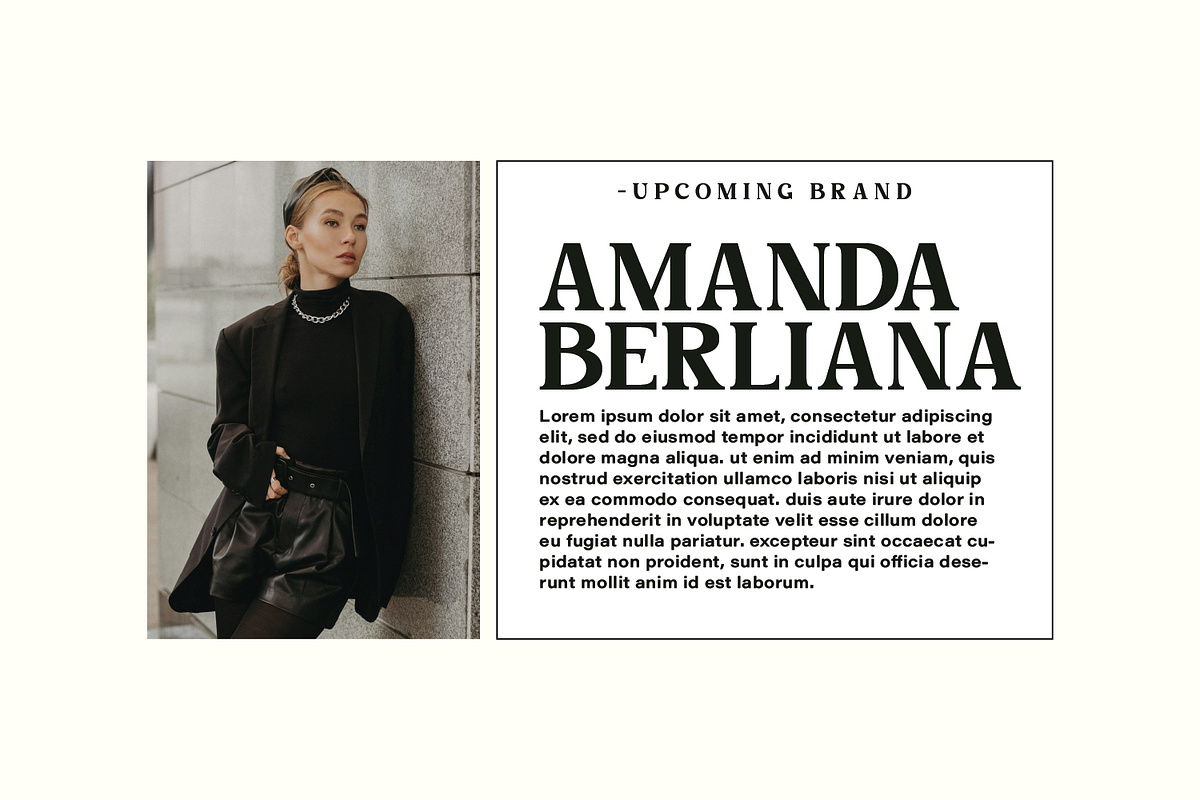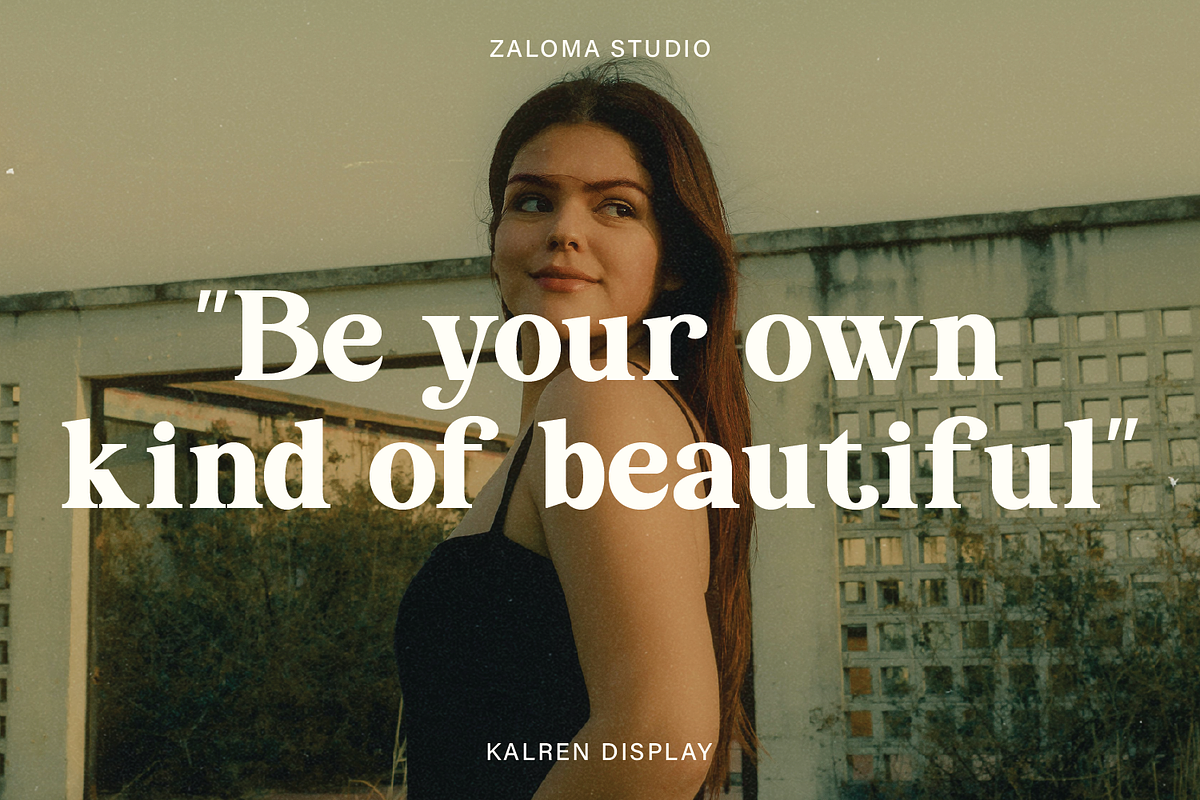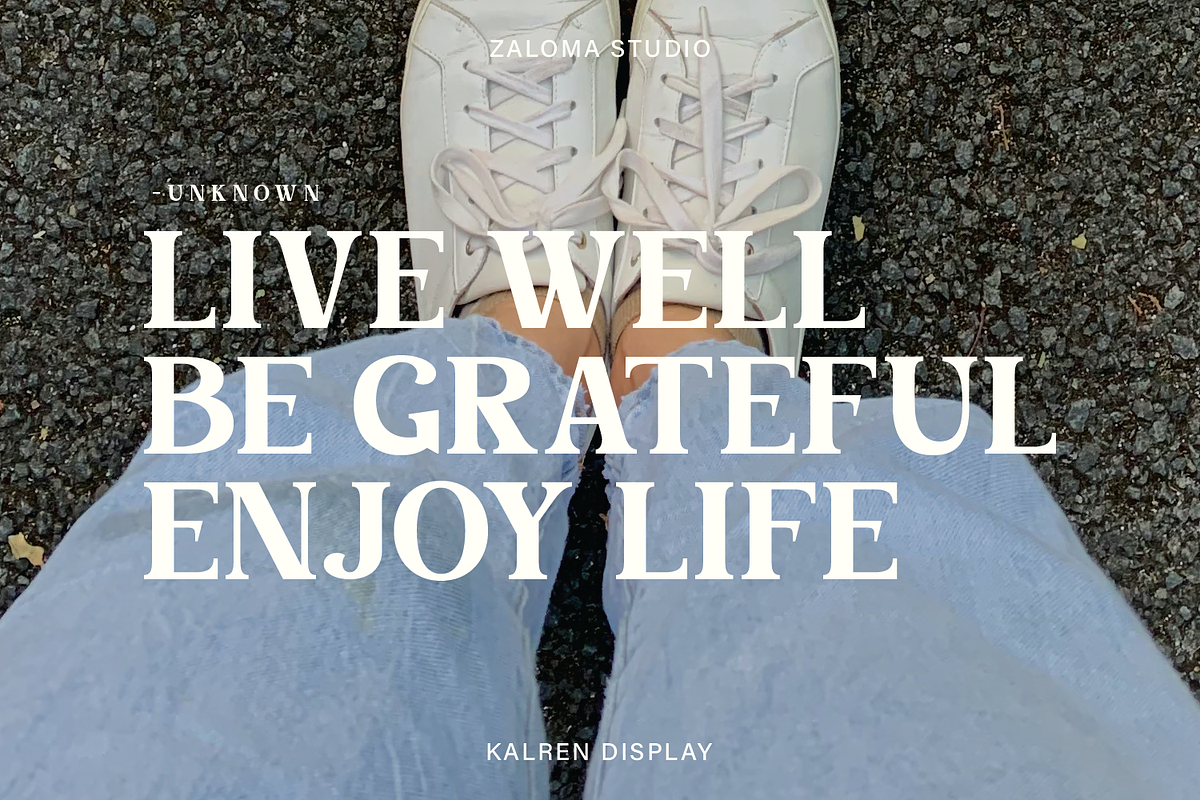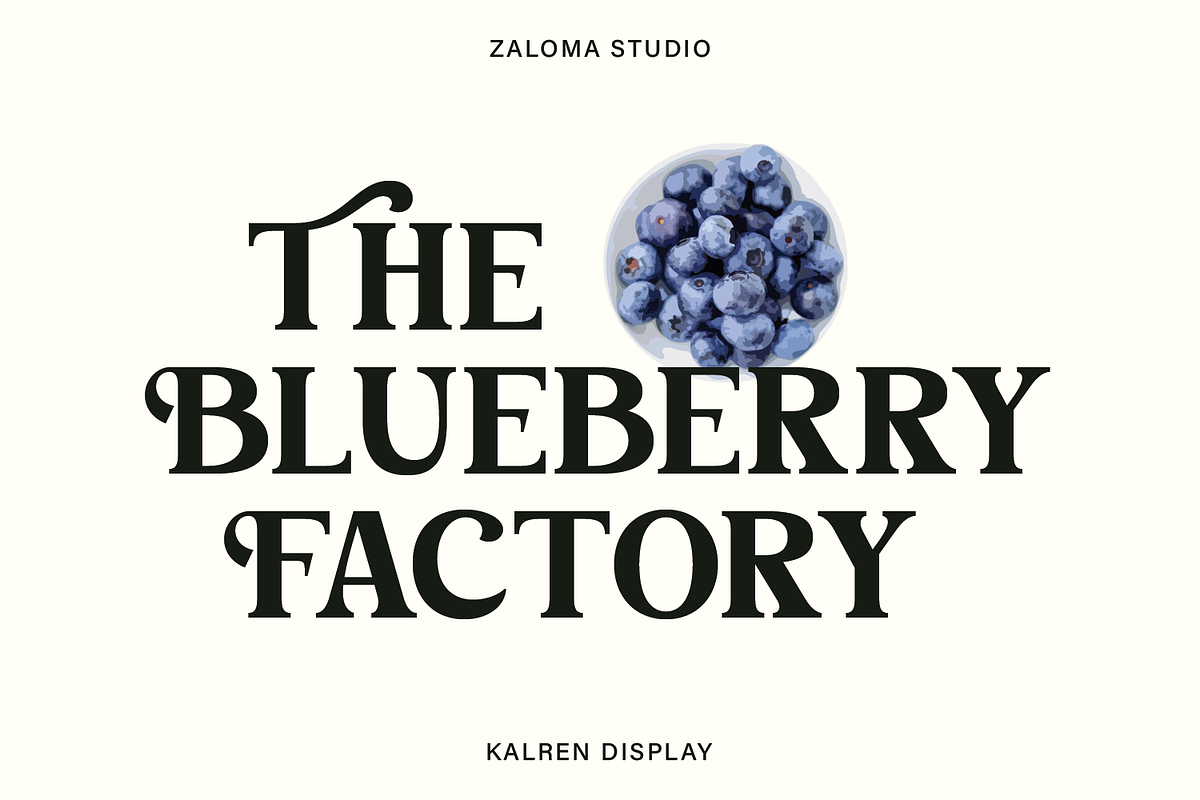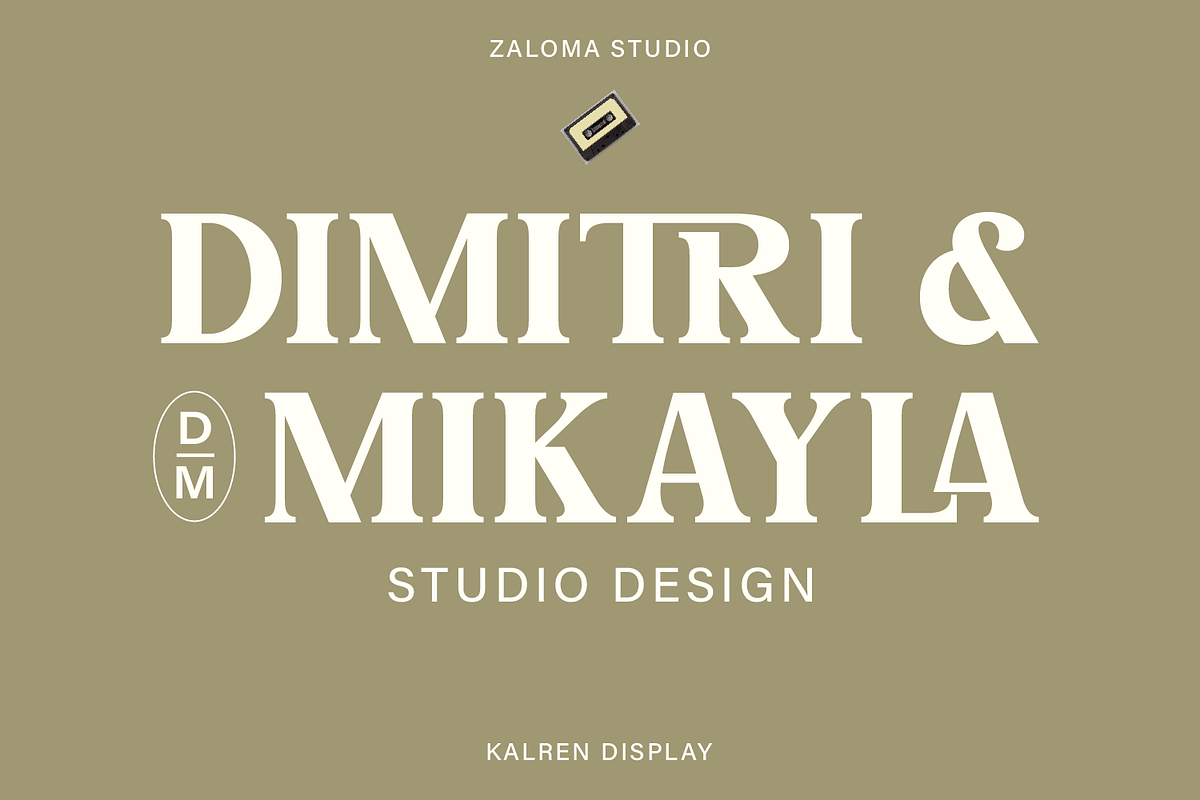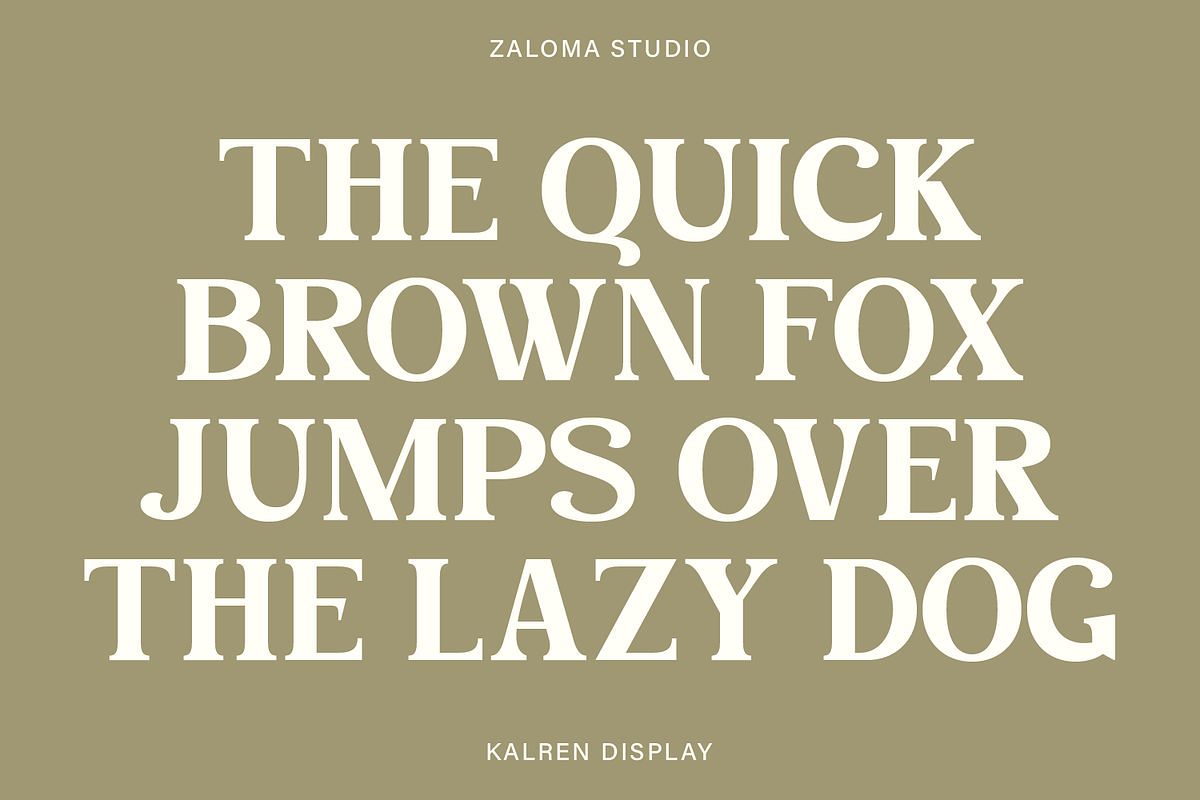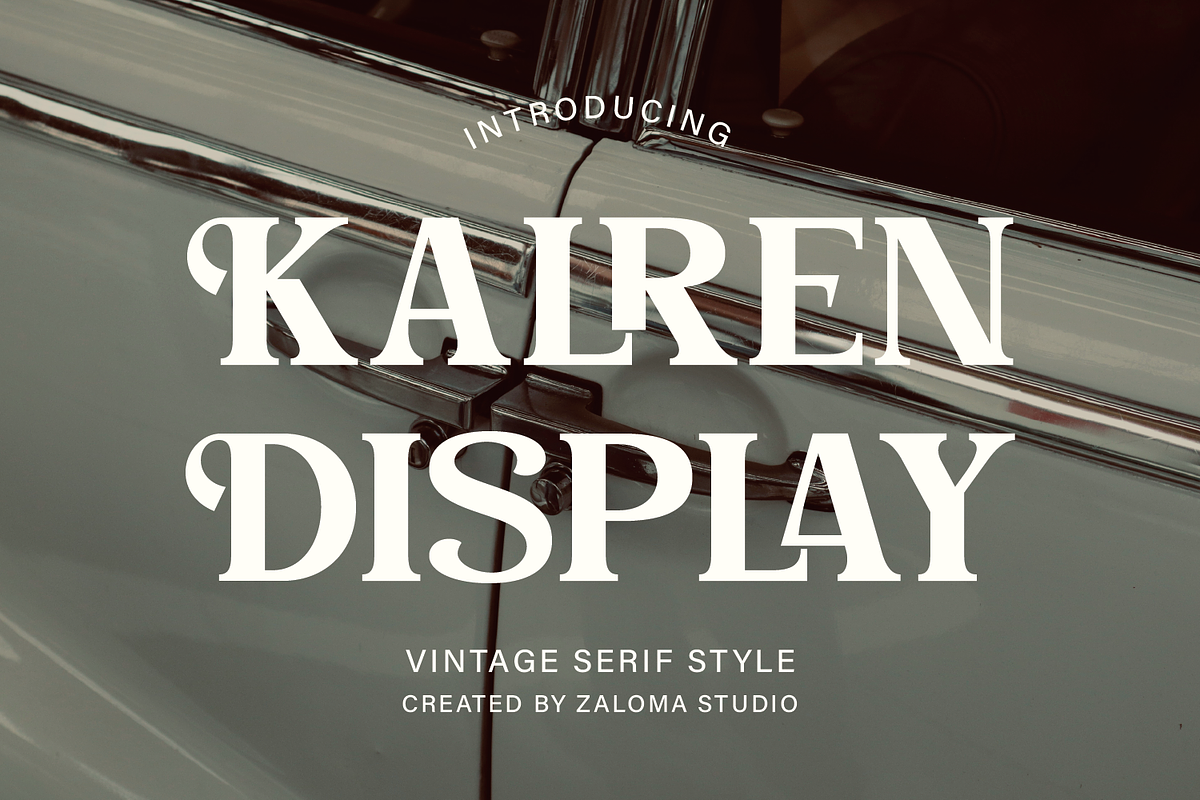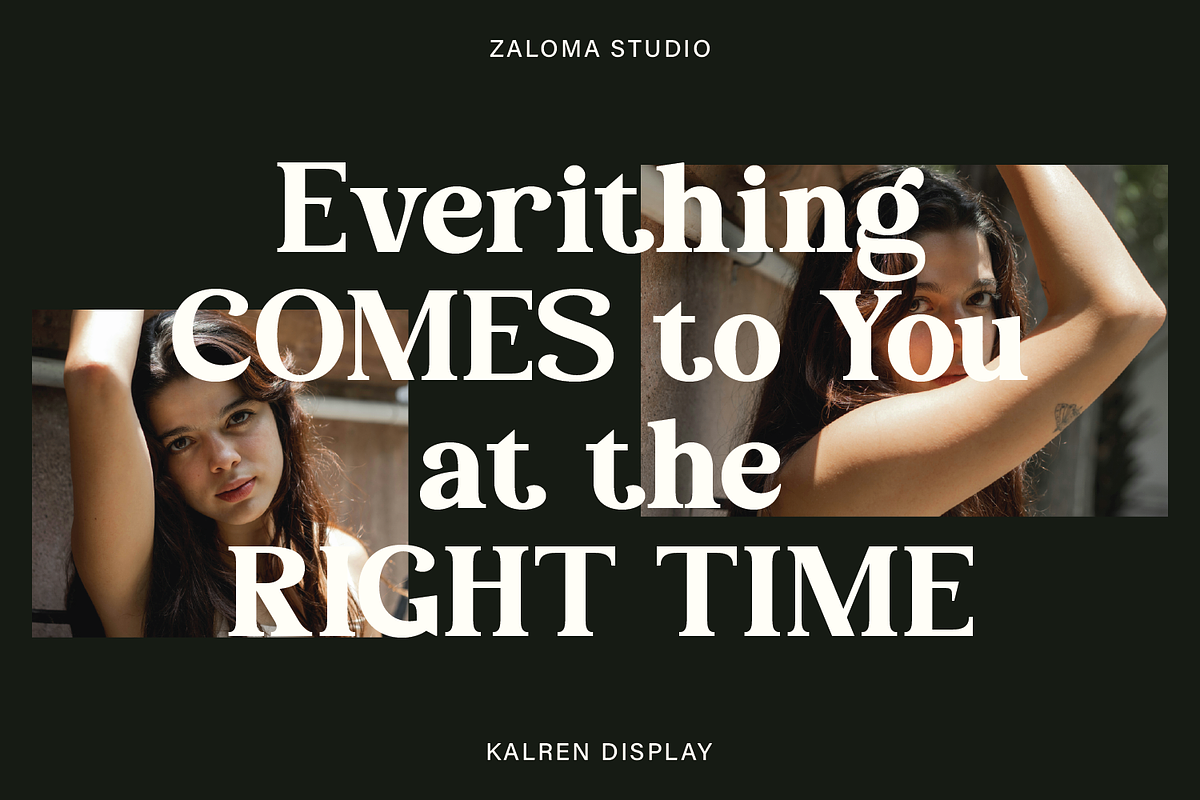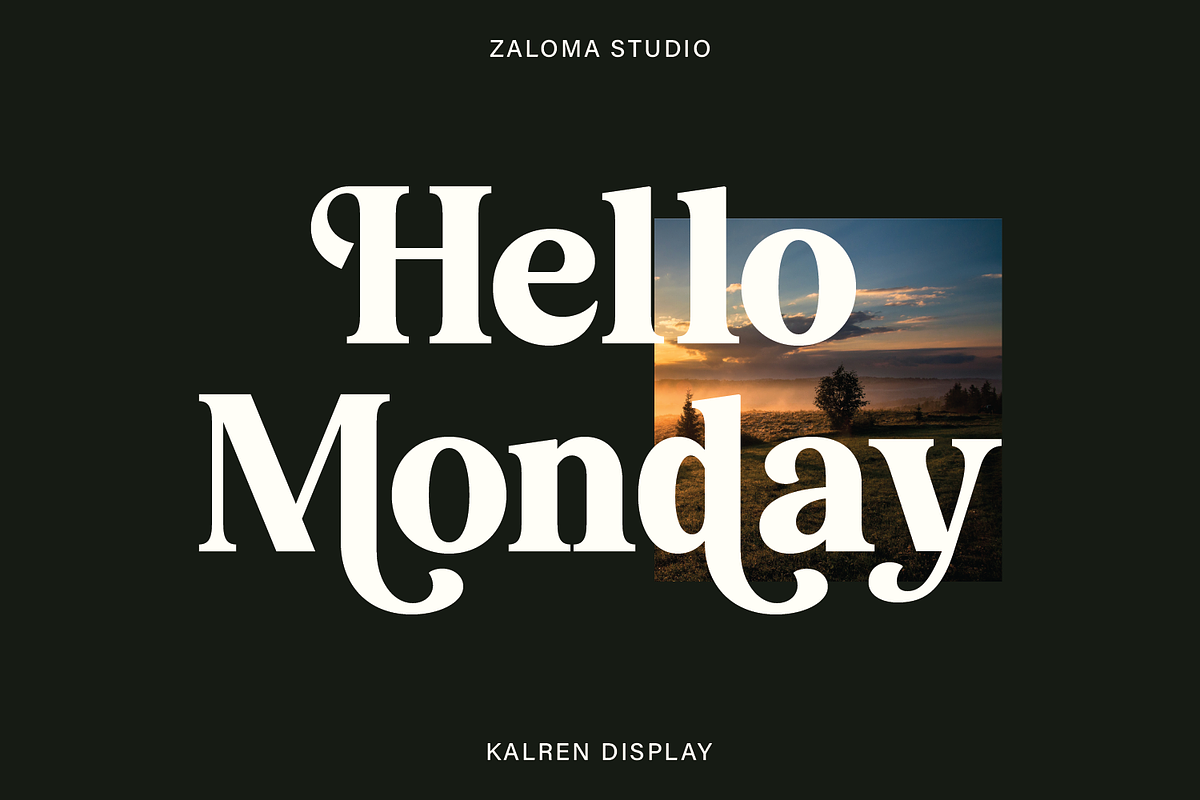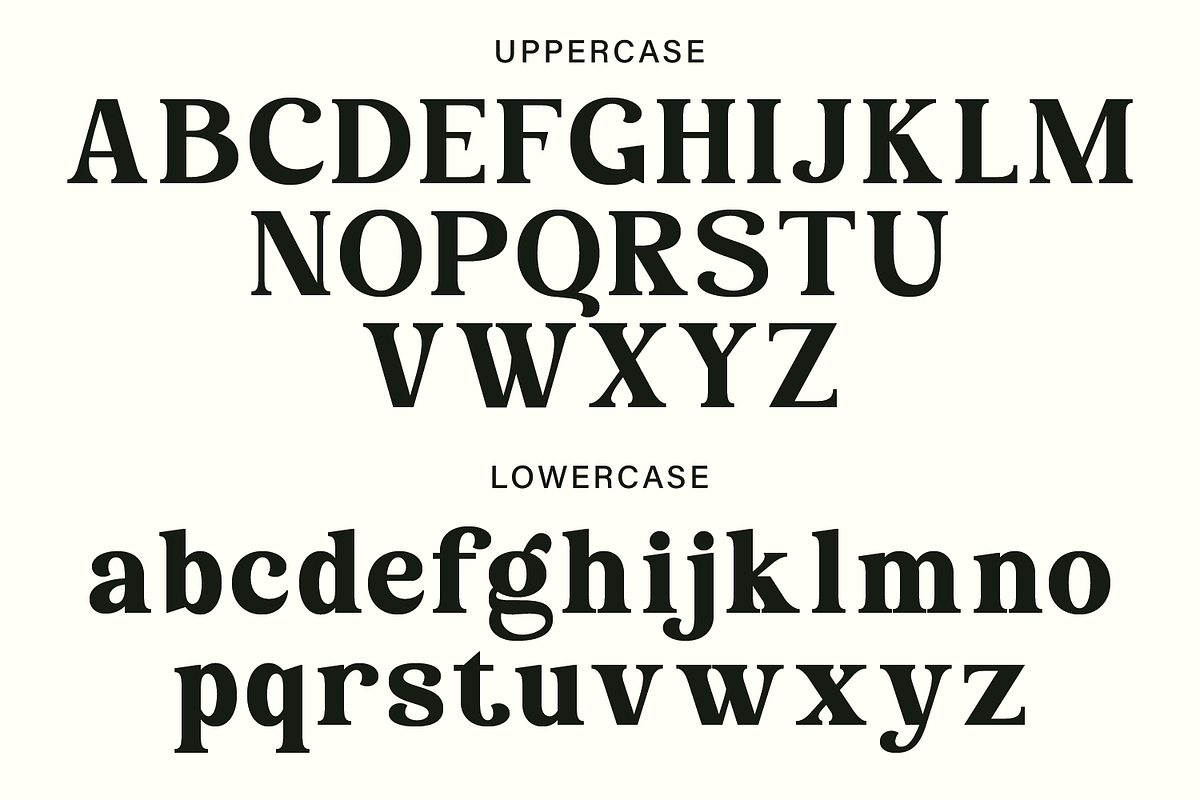
Kalren Display
KALREN DISPLAY is a retro-style serif font from Zaloma Studio that exudes a classic and elegant feel. With bold letterforms and decorative touches, this font is perfect for vintage designs, luxury branding, and editorial use. Equipped with alternate characters and harmonious ligatures, Elvokado offers flexibility in creating unique and sophisticated typography. Ideal for posters, premium packaging, and design projects that prioritize a classic aesthetic with a modern touch.